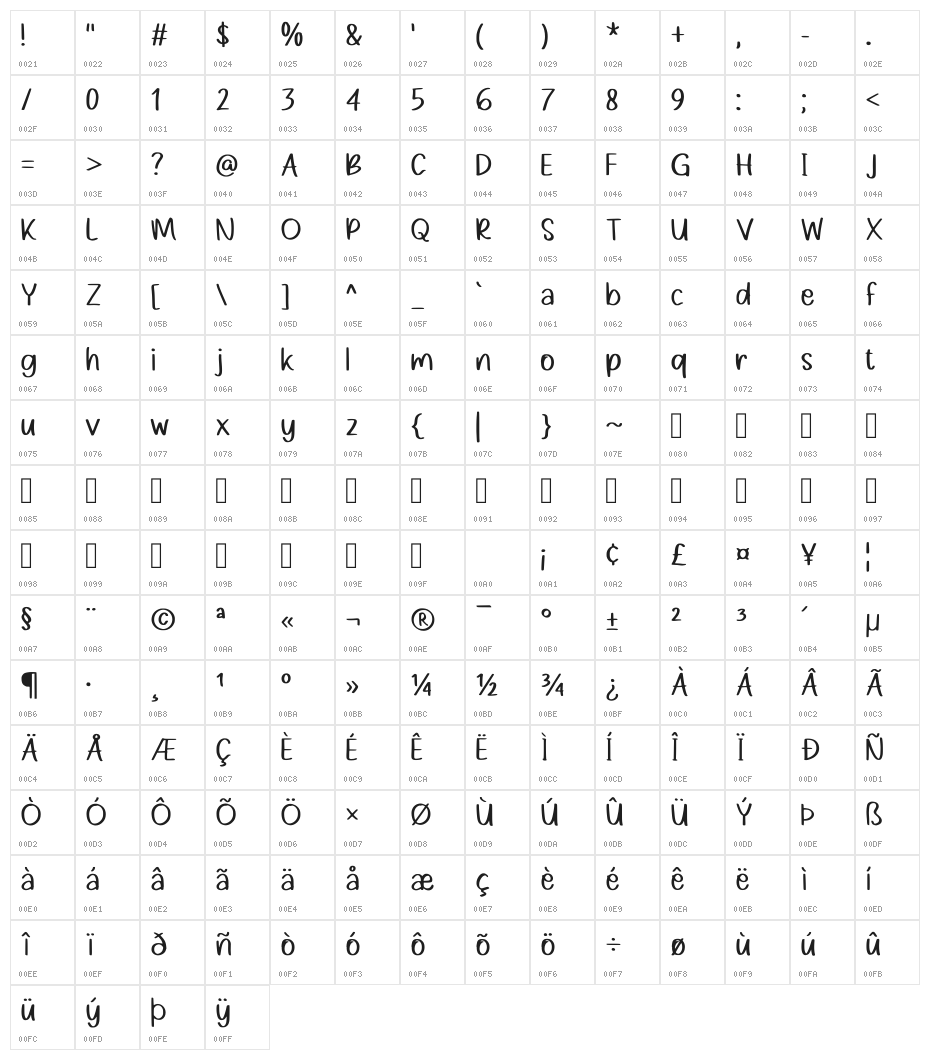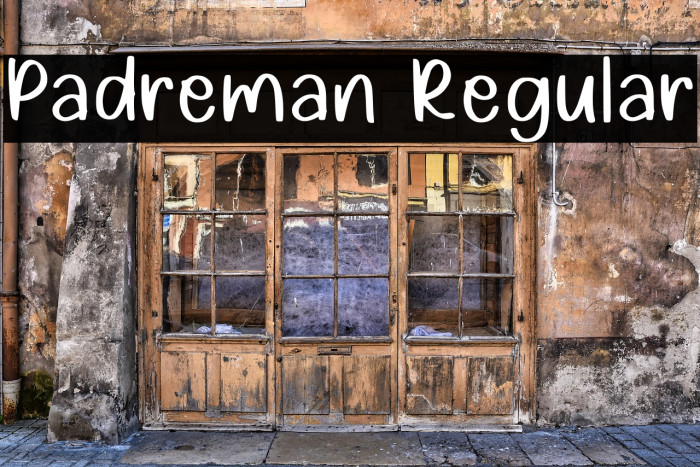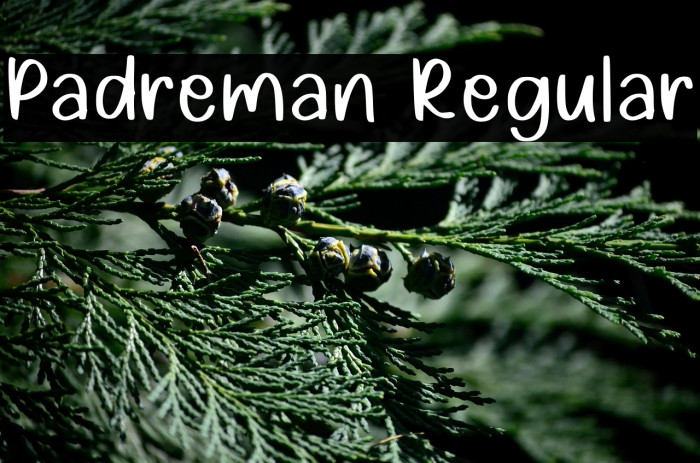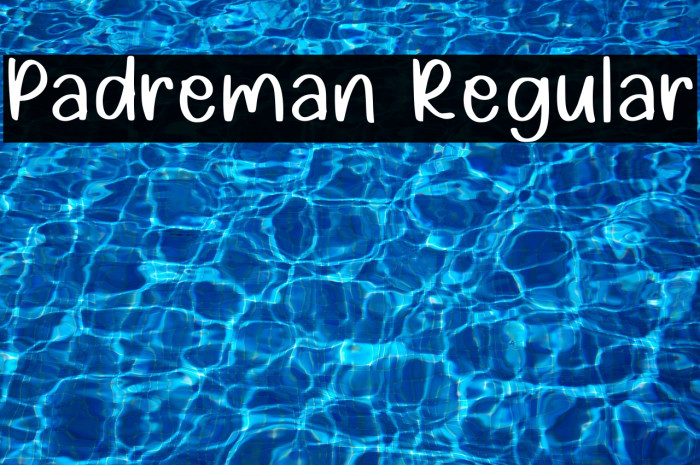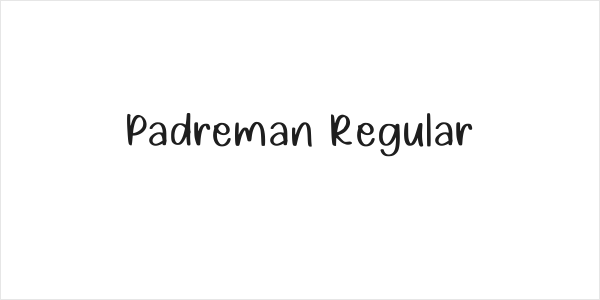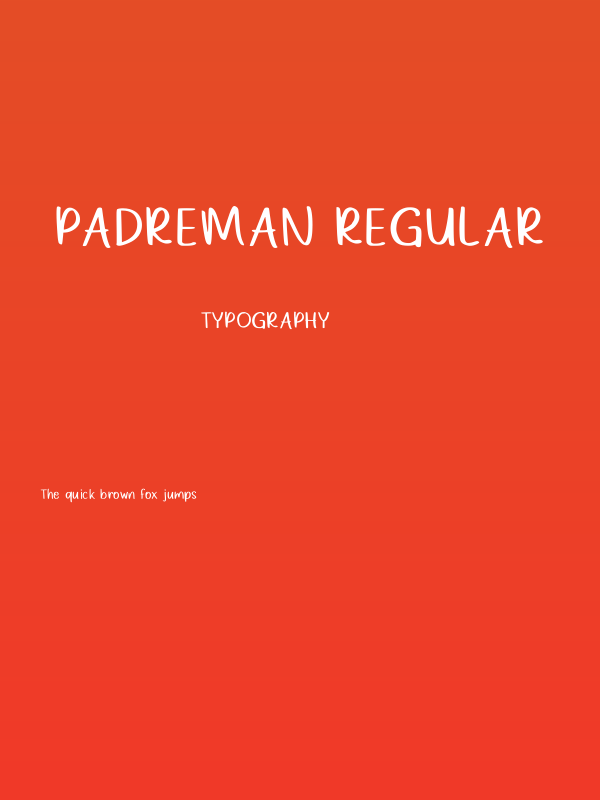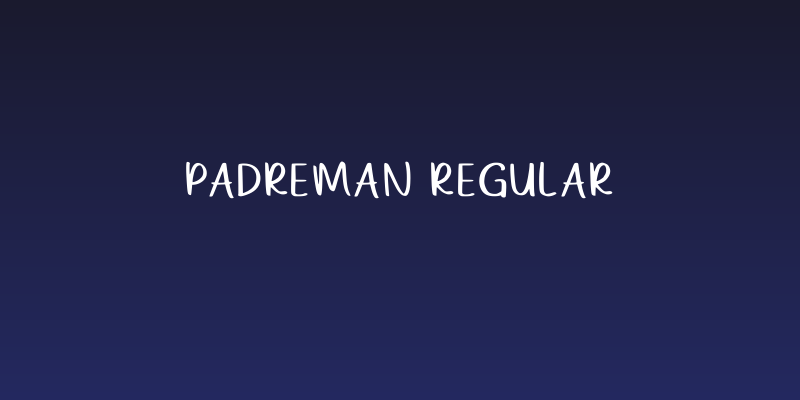
Padreman Regular Font
Padreman Regular Description
This font features a playful and casual handwritten style, characterized by its smooth curves and slightly irregular strokes that give it a friendly and approachable appearance. The letters are well-formed with a consistent baseline, yet they maintain a natural, flowing quality that mimics the look of hand-drawn text. The uppercase letters are bold and prominent, while the lowercase letters are slightly more relaxed, adding to the overall informal vibe. The numerals are clear and easy to read, complementing the alphabet with their rounded forms. Special characters are included, maintaining the same whimsical style, making this font versatile for various creative projects.
| Proposed Projects | Ideal for greeting cards, children's books, casual branding, and social media graphics. |